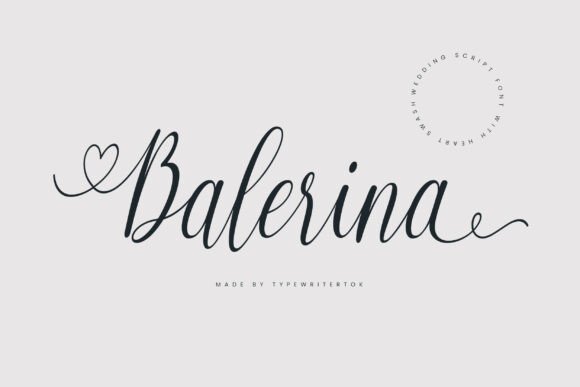
Unlock the Romance of Your Special Moments with Balerina Font
As a designer, there’s nothing quite like the thrill of bringing a client’s vision to life. For me, it’s the moment when a client’s eyes light up as they see their wedding invitation design for the first time – it’s pure magic. But, it’s not just about creating a beautiful design, it’s about capturing the essence of the occasion and making it truly unforgettable.
That’s where Balerina Font comes in – a stunning wedding script font designed to evoke romance and elegance in every project. With its flowing strokes and delicate curves, this font is perfect for adding a touch of sophistication to wedding invitations, bridal shower designs, and event stationery. Whether you’re a seasoned designer or just starting out, Balerina Font is a valuable addition to your toolkit, offering endless possibilities for creating truly unforgettable designs.
- Unique Characteristics: Ballerina Font features elegant, flowing curves and subtle flair, making it ideal for fashion, beauty, and lifestyle designs.
Ballerina Font Review
As a designer, I’ve had the chance to work with a wide range of fonts, and I must say, the Ballerina Font is a unique one. Here are my thoughts on what works well and what doesn’t.
What Works Well: ✨
- Cursive and elegant design, perfect for creating a whimsical feel
- Wide range of languages supported, making it a great choice for international projects
- Works well for titles and headings, adding a touch of sophistication
- May be too ornate for some projects, overpowering the content
- Lack of bold weight options, limiting its versatility
- May not be the best choice for body text, due to its cursive nature
The Ballerina Font is a beautiful and elegant font, perfect for creating a unique and whimsical feel. While it may have some limitations, it’s a great choice for titles and headings, and its wide language support makes it a great option for international projects. With a bit of restraint and careful placement, the Ballerina Font can add a touch of sophistication to any design.
The Ballerina font is ideal for:
- Baby shower invitations and decorations
- Photography and graphic design projects